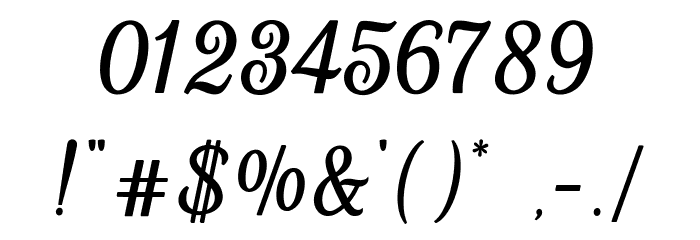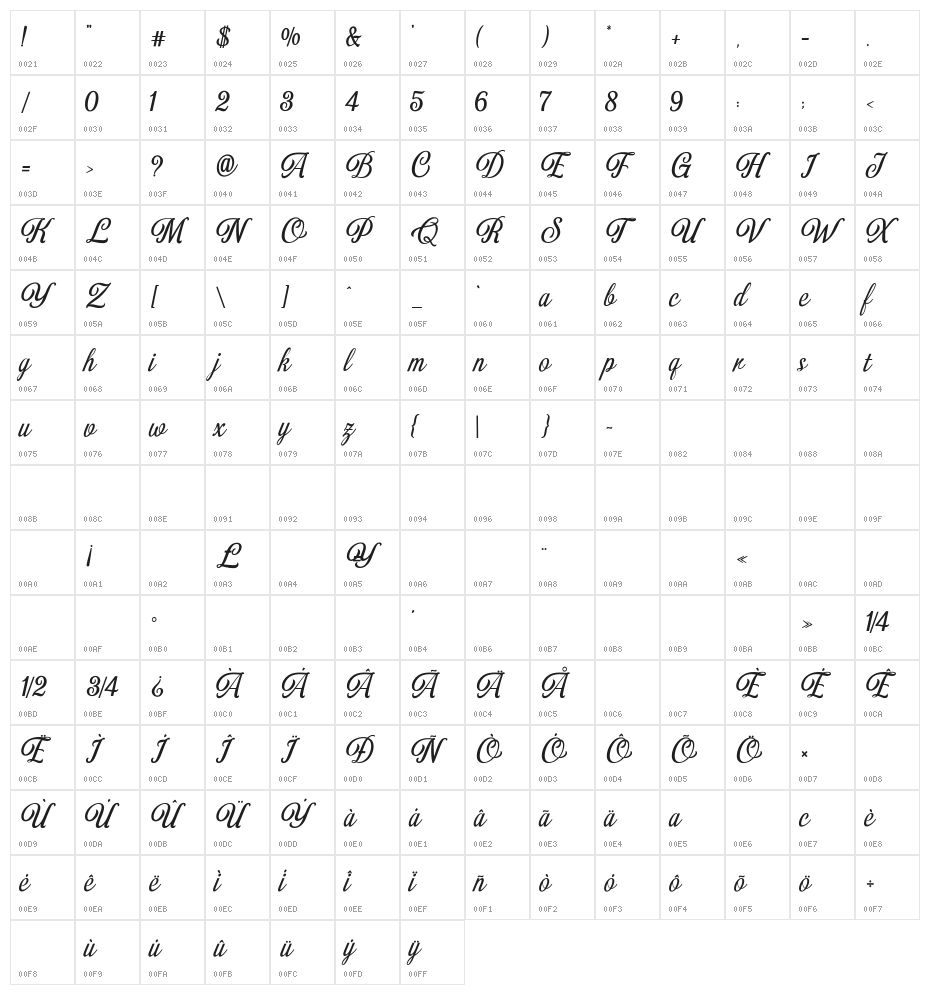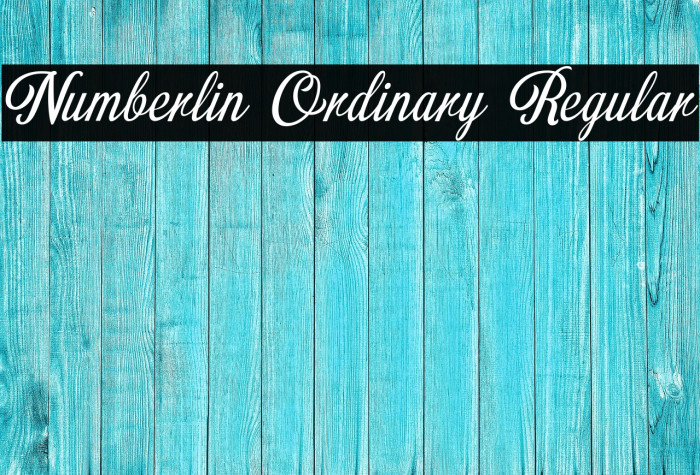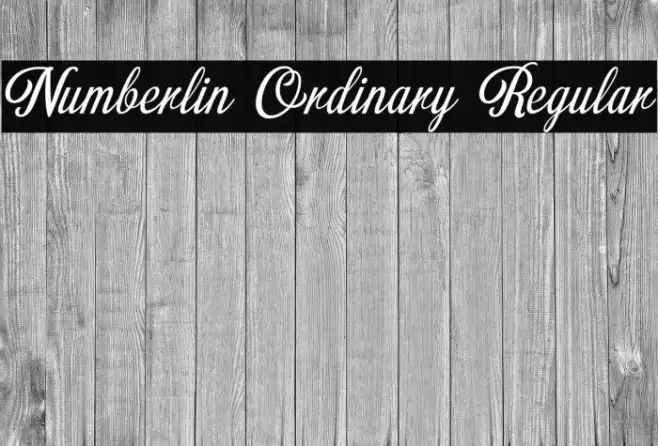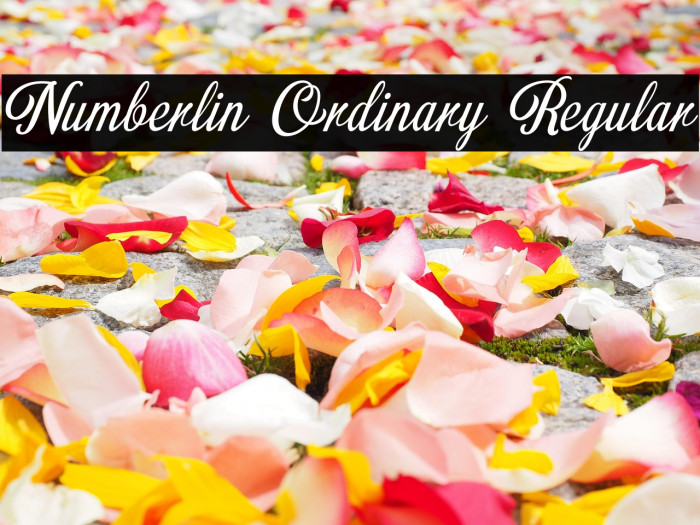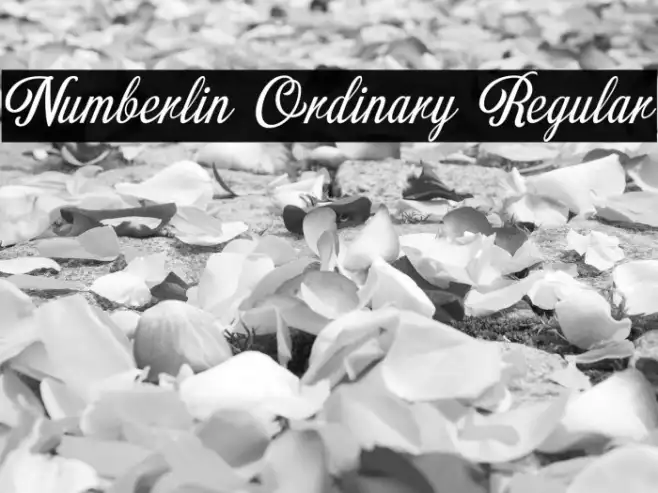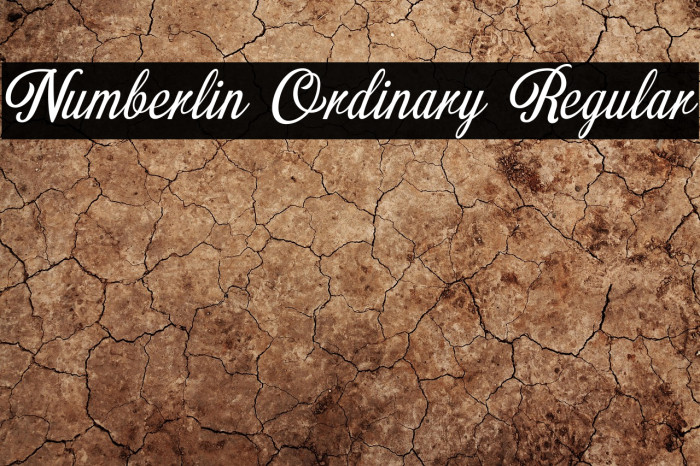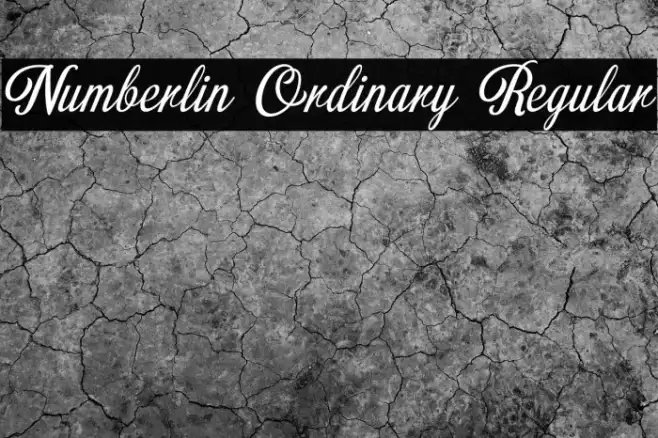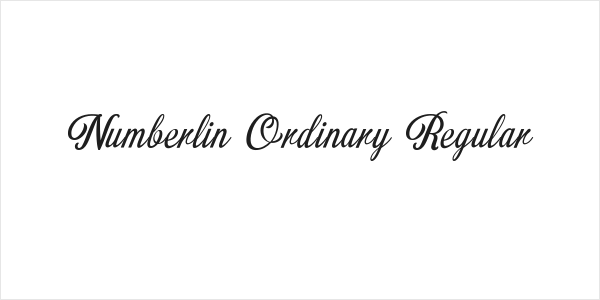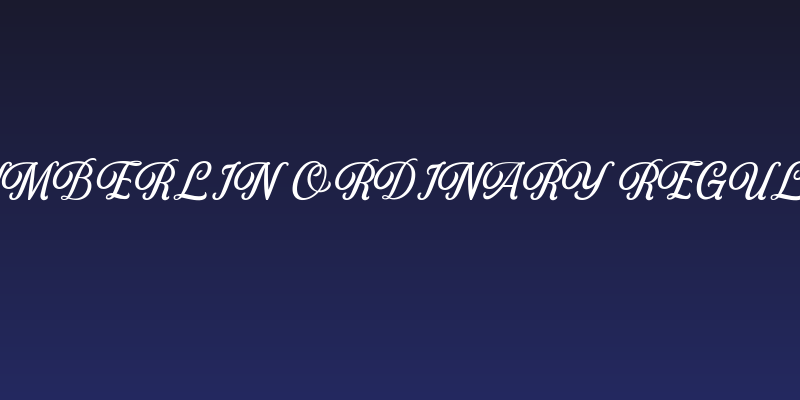
This elegant script font features flowing, cursive letters with a classic and sophisticated style. The uppercase characters are ornate, with sweeping curves and flourishes that add a touch of formality and grace. The lowercase letters maintain a smooth, connected flow, enhancing readability while preserving the font's decorative nature. Numbers and special characters are designed with the same attention to detail, ensuring consistency throughout. This font is ideal for projects requiring a touch of elegance and refinement.
| Use Case | Headlines, Invitations, Branding |
| Proposed Projects | Wedding invitations, formal event programs, elegant branding, and luxury product packaging. |